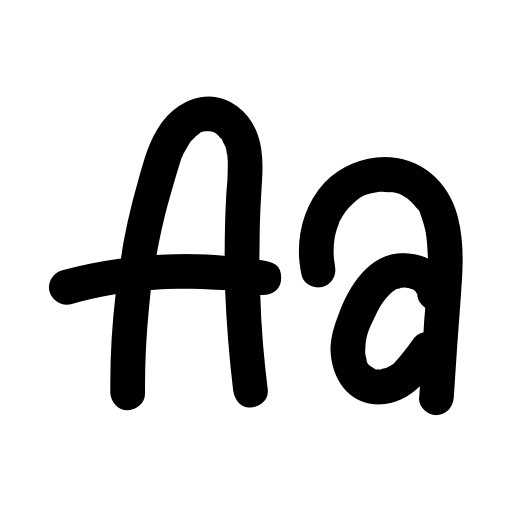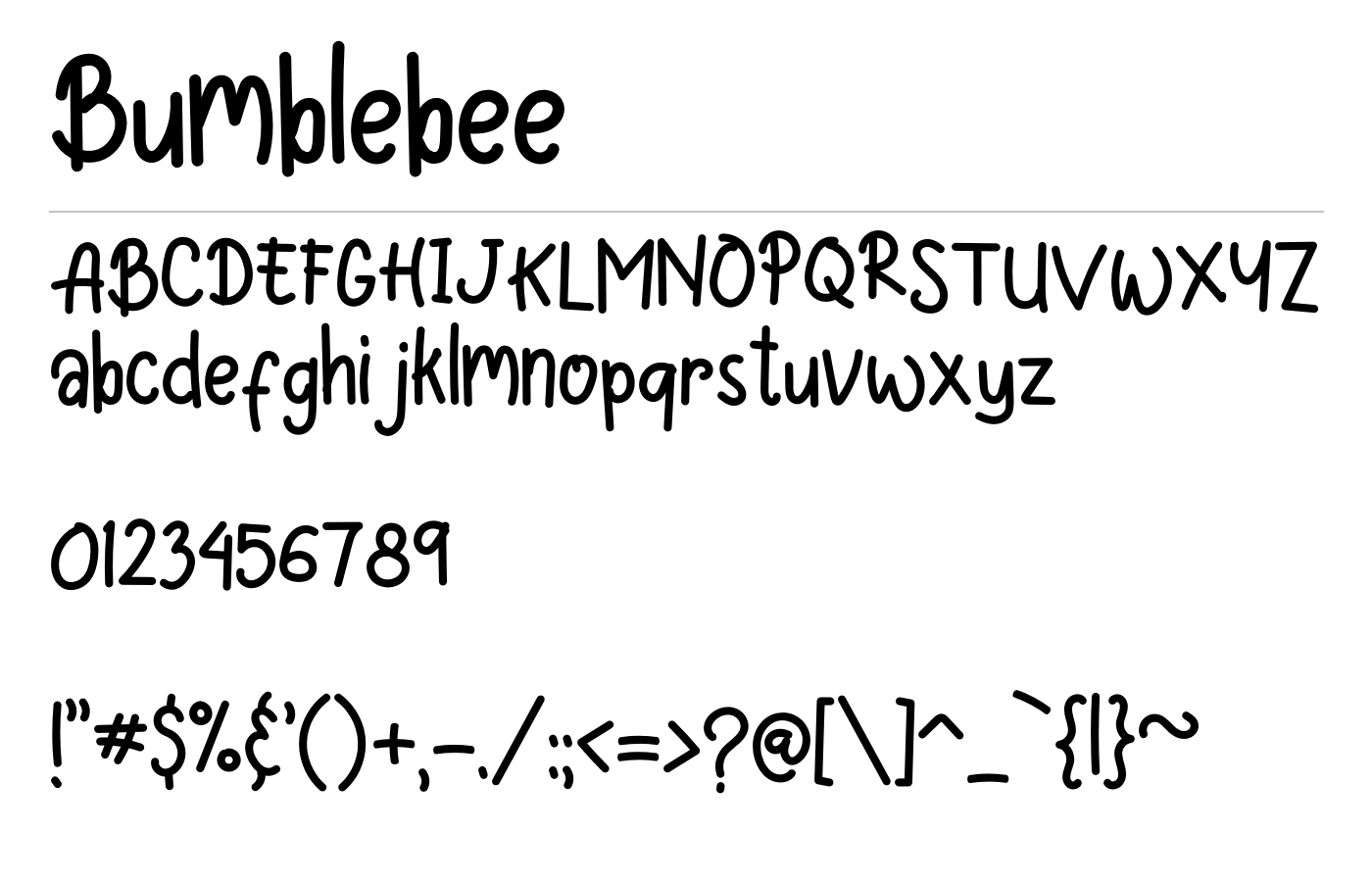
Bumblebee is a playful, casual handwritten sans serif font featuring rounded, slightly irregular letterforms that convey a friendly and approachable vibe. Its moderate weight and relaxed spacing make it ideal for children’s books, informal branding, and creative projects seeking a cheerful and lighthearted personality. This font works best in headlines, logos, and packaging where a fun, personal touch is desired.
Bumblebee Font
About Bumblebee Font
| Font family | Bumblebee Font |
| Designer | Haksen Letters |